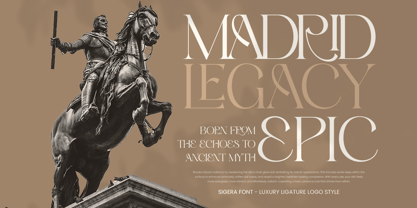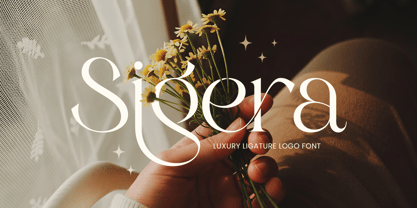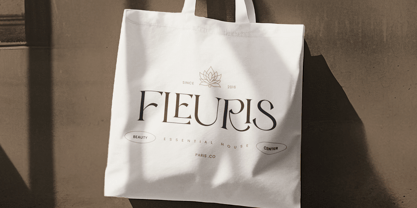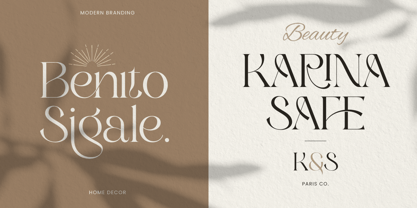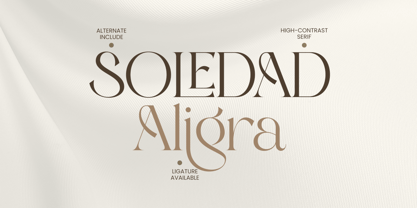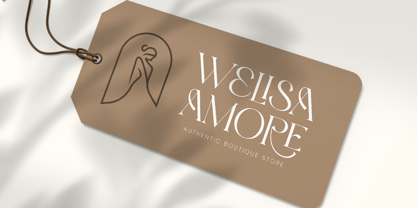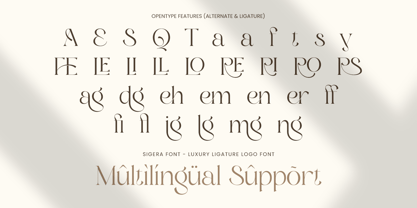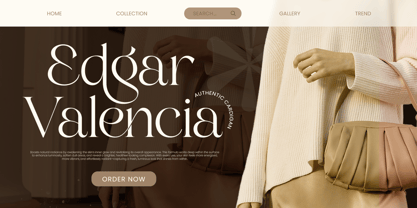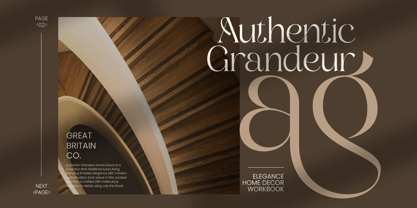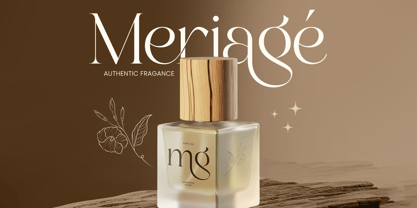
Sigera is a luxury ligature logo font crafted to bring refined elegance and premium character to modern branding. Designed with stylish ligatures and a polished rhythm, this typeface creates a distinctive, high-end impression—perfect for brands that want their typography to feel exclusive, confident, and unforgettable.
Built for logo-centric design, Sigera elevates wordmarks, brand identity systems, packaging, labels, website headers, editorials, invitations, and social media visuals. The ligature details add a smooth, connected flow that enhances sophistication and makes logos feel more custom, luxurious, and professionally tailored across both digital and print formats.
Whether you’re developing a fashion label, beauty brand, jewelry identity, premium product packaging, or an upscale editorial layout, Sigera delivers a luxury foundation with signature ligature flair—helping your designs look modern, elegant, and instantly recognizable.
Inspiration Behind Sigera
SIGERA is inspired by high-fashion typography and premium logo systems where elegant connections create a bespoke feel. The design focuses on refined ligatures, balanced spacing, and luxury-driven rhythm to support upscale branding, editorial headlines, and premium packaging with a timeless, sophisticated presence.
Sigera Font Features:
Luxury ligature letterforms optimized for logo and wordmark design
Elegant structure with a premium, high-end visual rhythm
Distinctive ligatures for a custom, boutique-style identity feel
Uppercase, lowercase, numerals, and punctuation included
OpenType features for polished, professional typesetting
Luxury logos, wordmarks, and premium brand identity systems
Fashion, beauty, skincare, fragrance, and boutique branding
Editorial layouts, magazine covers, lookbooks, and headlines
Premium packaging, labels, invitations, and event stationery
Social media campaigns, websites, ads, and marketing assets
Multilingual Support
Sigera